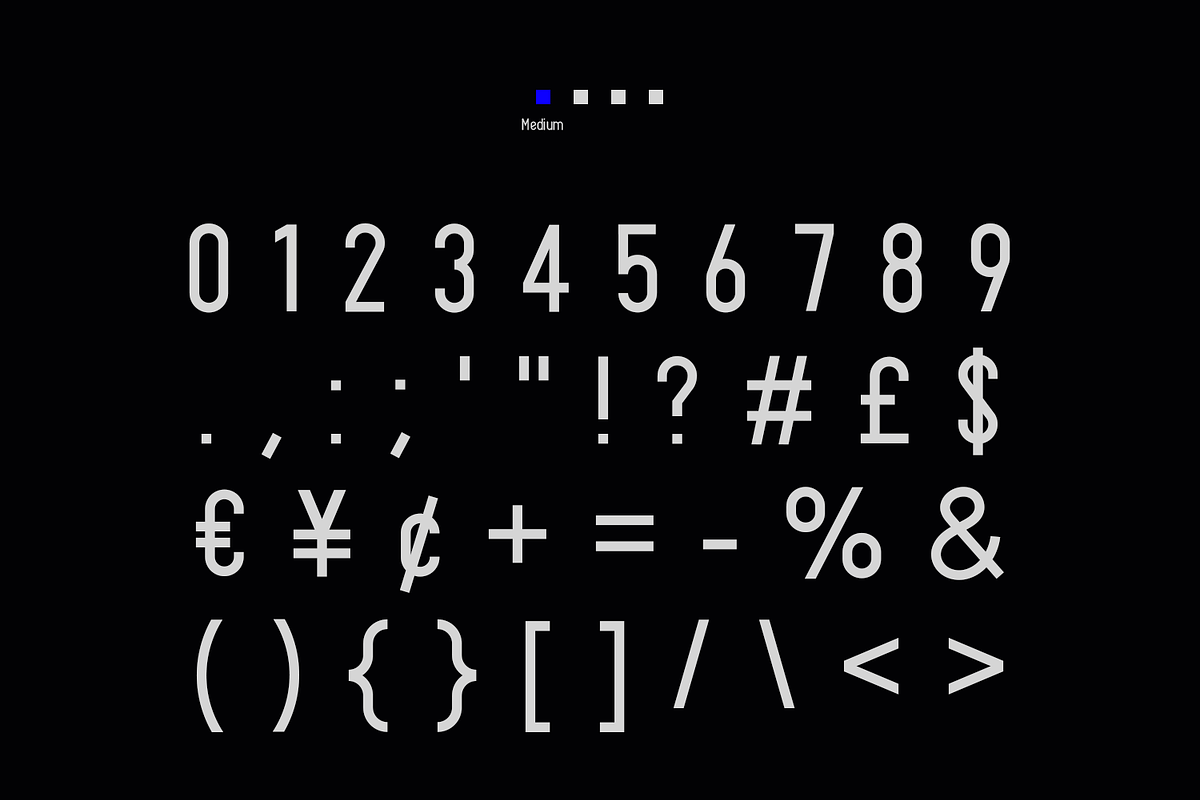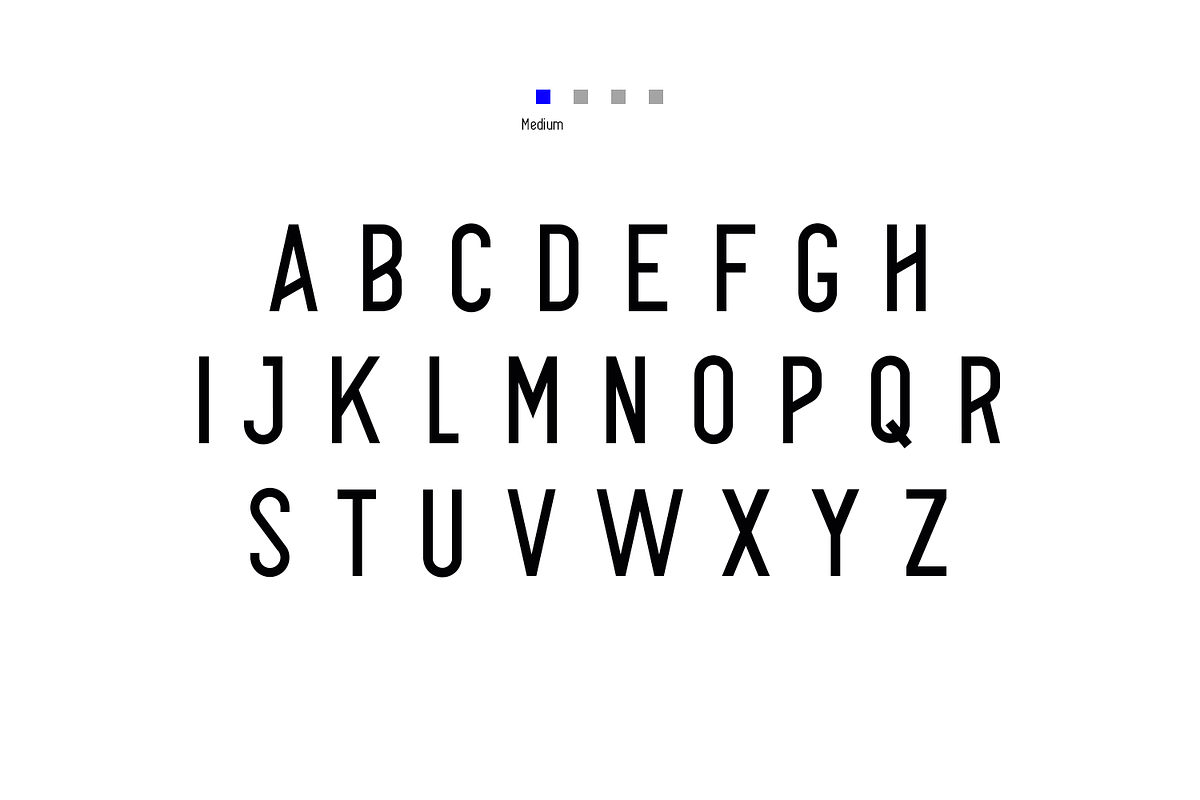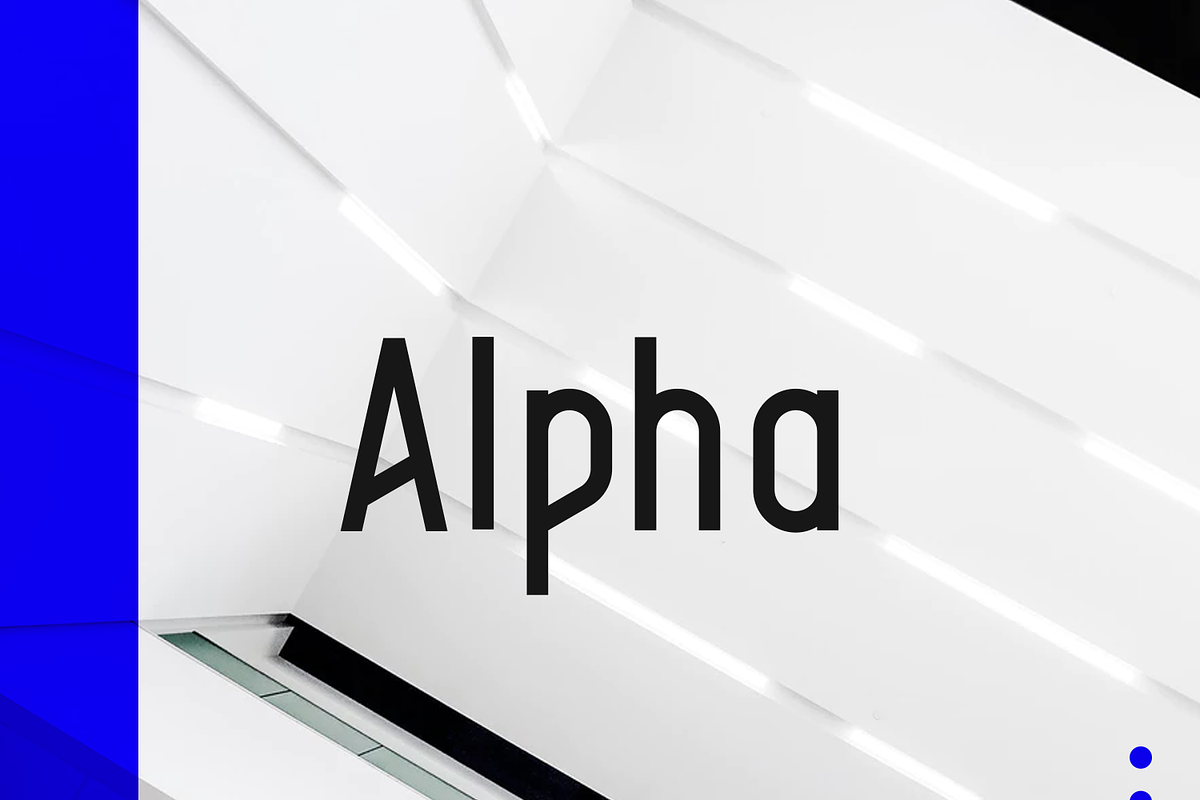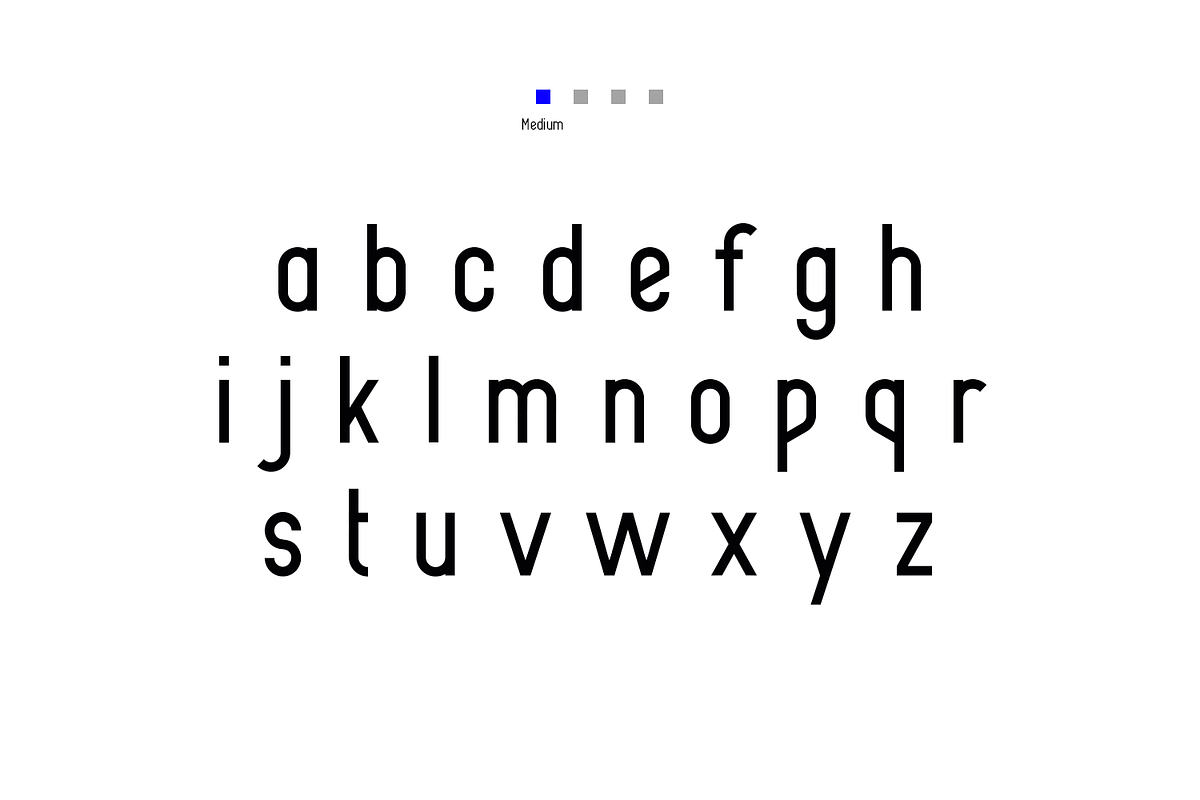
Alpha Typeface | 4 Styles
Alpha is my first font I have created. It is minimal, simple and has 4 weights! I really enjoyed making this font and has been a great learning curve. many more to come :)
- Alpha Light
- Alpha Regular
- Alpha Medium
- Alpha Inline